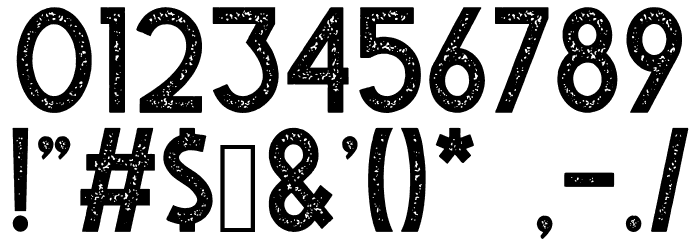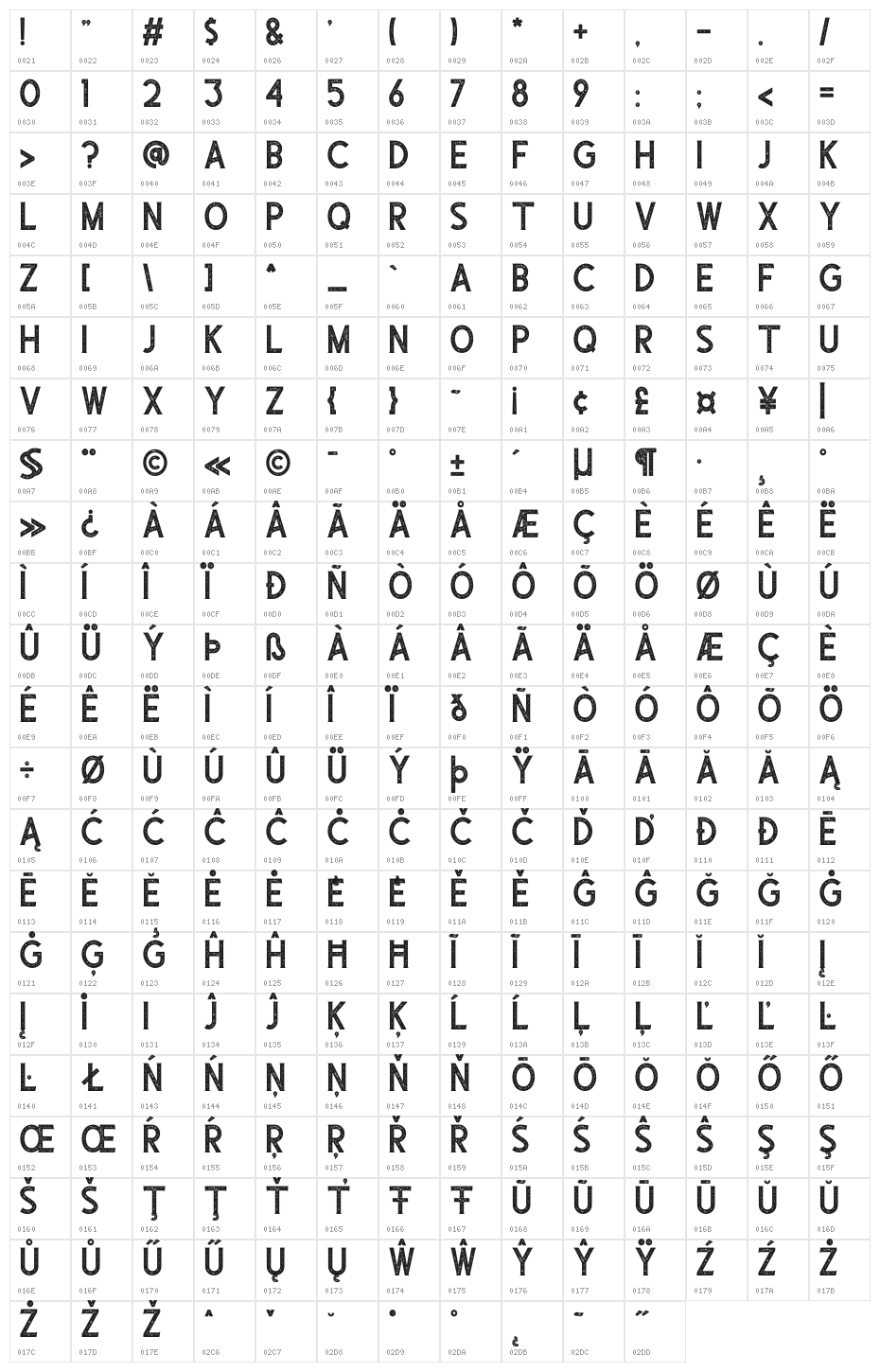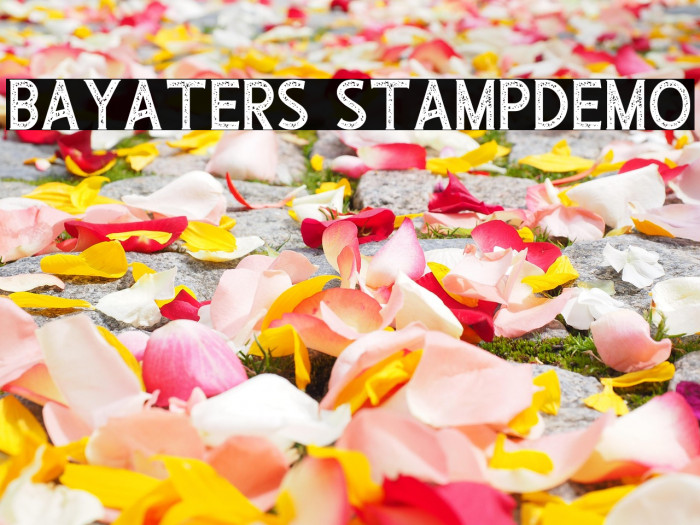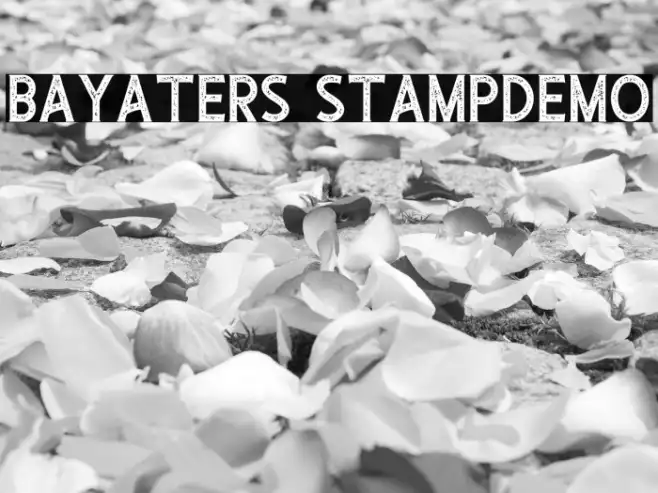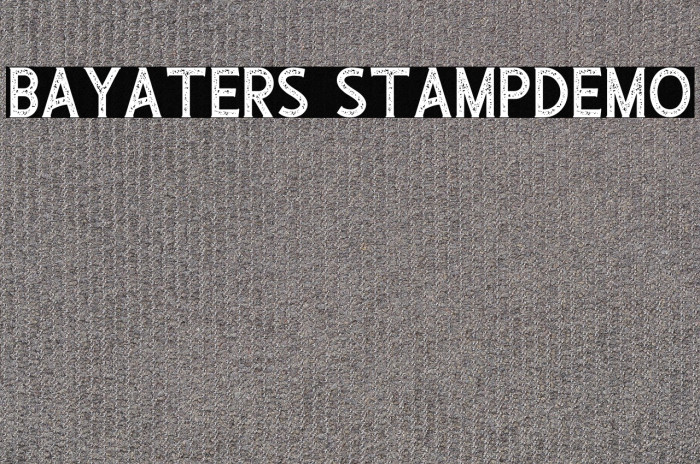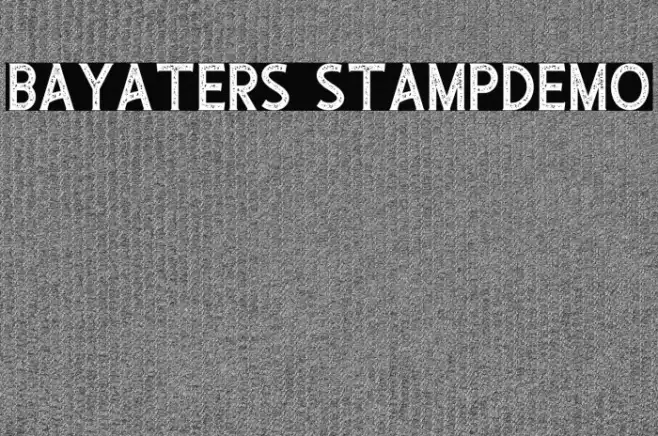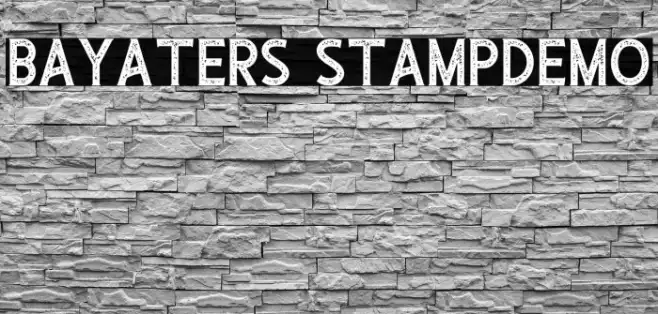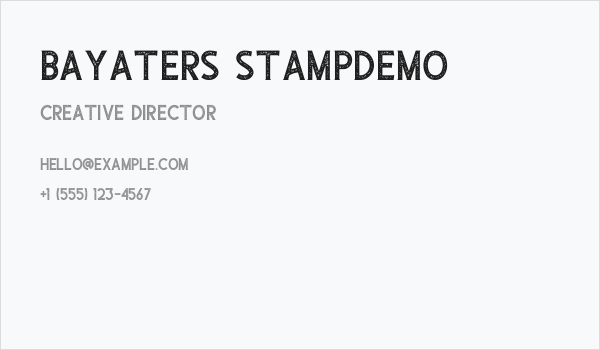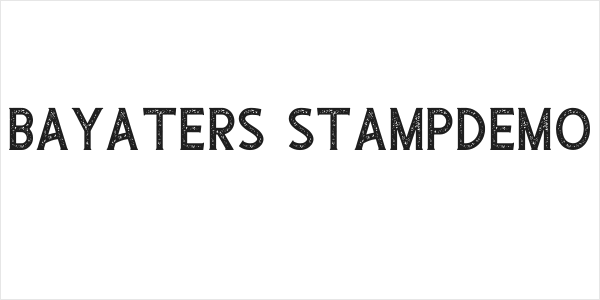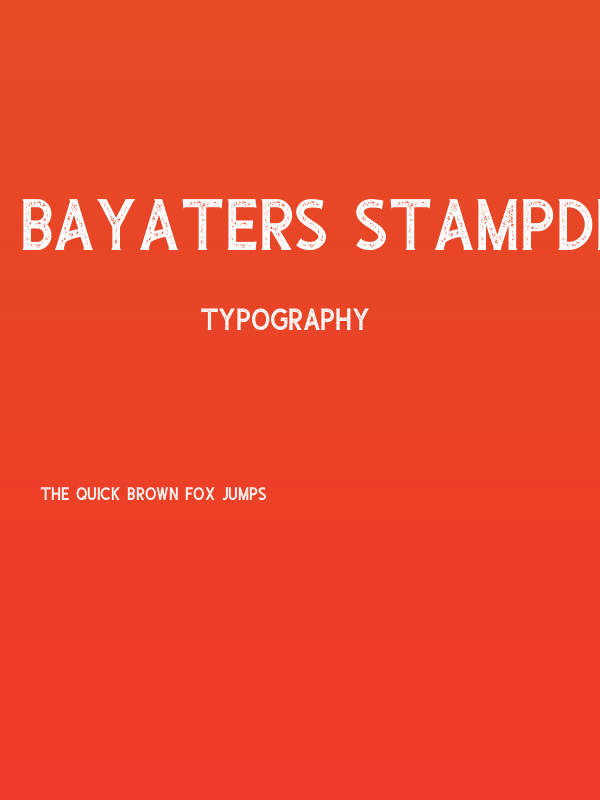
Bayaters StampDemo Font
Bayaters StampDemo Description
This font features a bold, distressed style that mimics the appearance of a vintage stamp. Each character is marked with a textured, worn effect, giving it a rugged and authentic look. The uppercase and lowercase letters maintain a consistent weight, while the numbers and special characters follow the same aesthetic, ensuring uniformity across all text. The font's design is both eye-catching and versatile, making it suitable for a variety of creative projects. Its bold presence and unique texture make it ideal for designs that require a strong visual impact.
| Proposed Projects | Ideal for branding, posters, packaging, and any project needing a vintage or rugged aesthetic. |